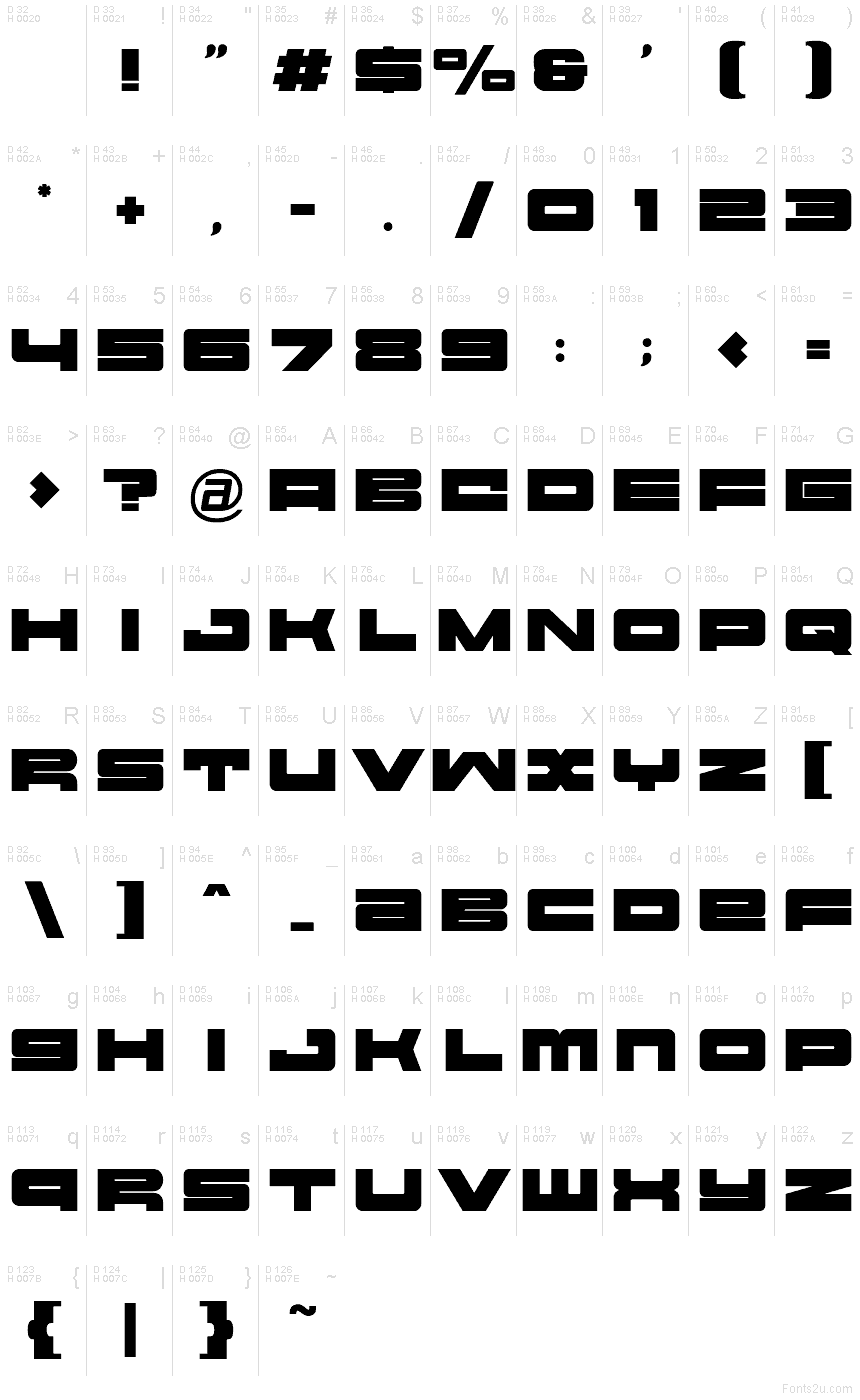
Super Ultra Supra One
Super Ultra Supra One font by PutraCetol Studio is a techno display font with a bold weight and expanded width. An indstrial, blocky, and geometric appearance from this free font prove unusual and memorable. This stimulating typeface can definitely grab attention as it has a futuristic presence.
Various creative projects can become better with Super Ultra One by utilizing its retro vibes. Some of which are posters, logos, video games, conceptual albums, clothing items, branding campaigns, smartphone cases, book covers, packaging designs.